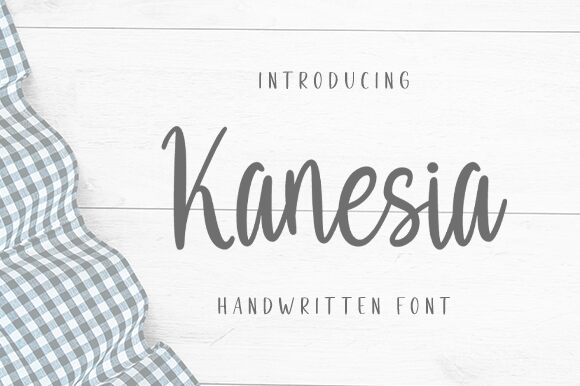
Kanesia
Kanesia, a handwritten font designed by Aldi Raya Pradipta, is perfect for projects with a personal touch. Its light weight and narrow width make it an excellent choice for creating eye-catching titles or adding a unique look to logos, invitations, and social media posts.